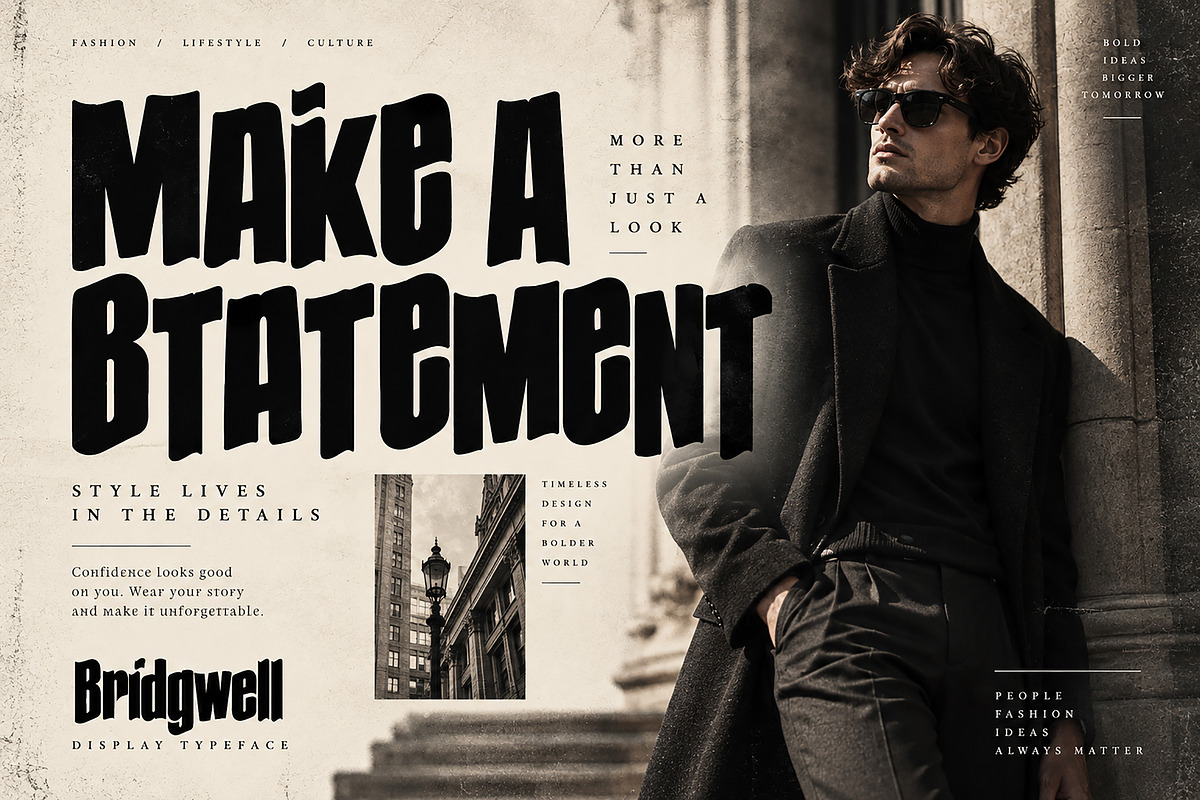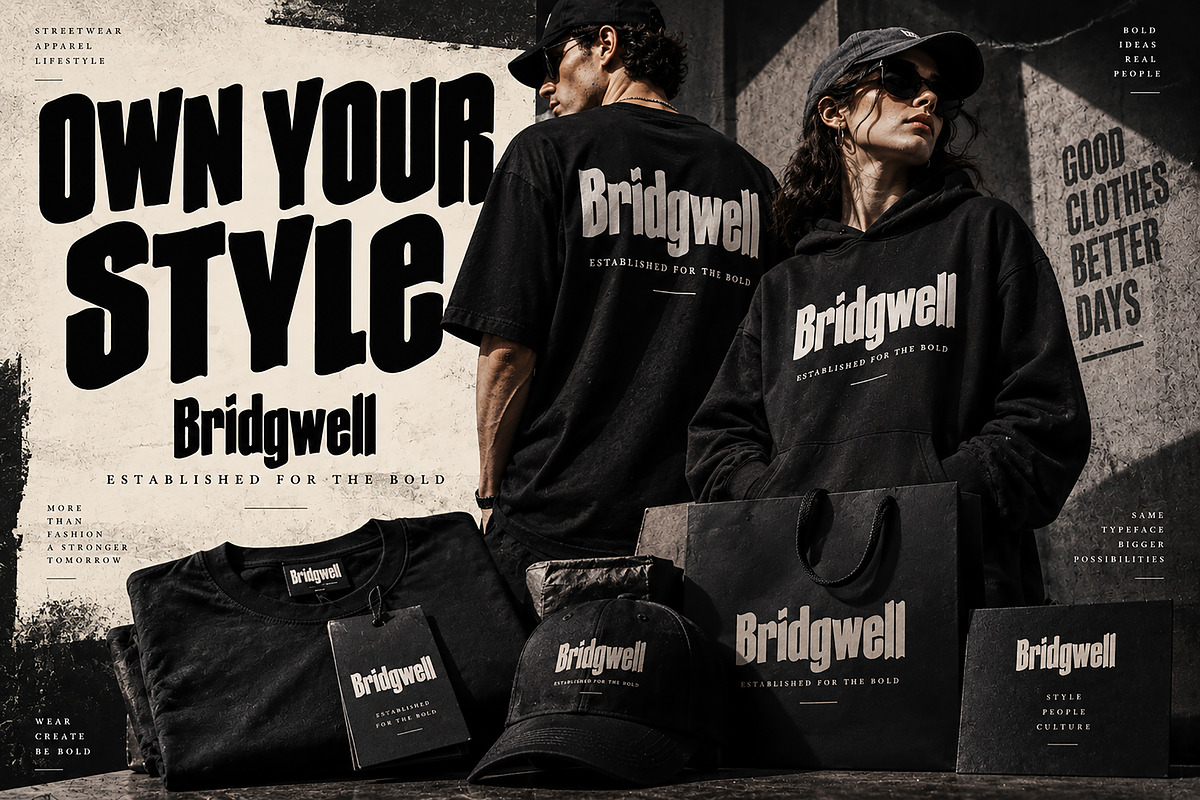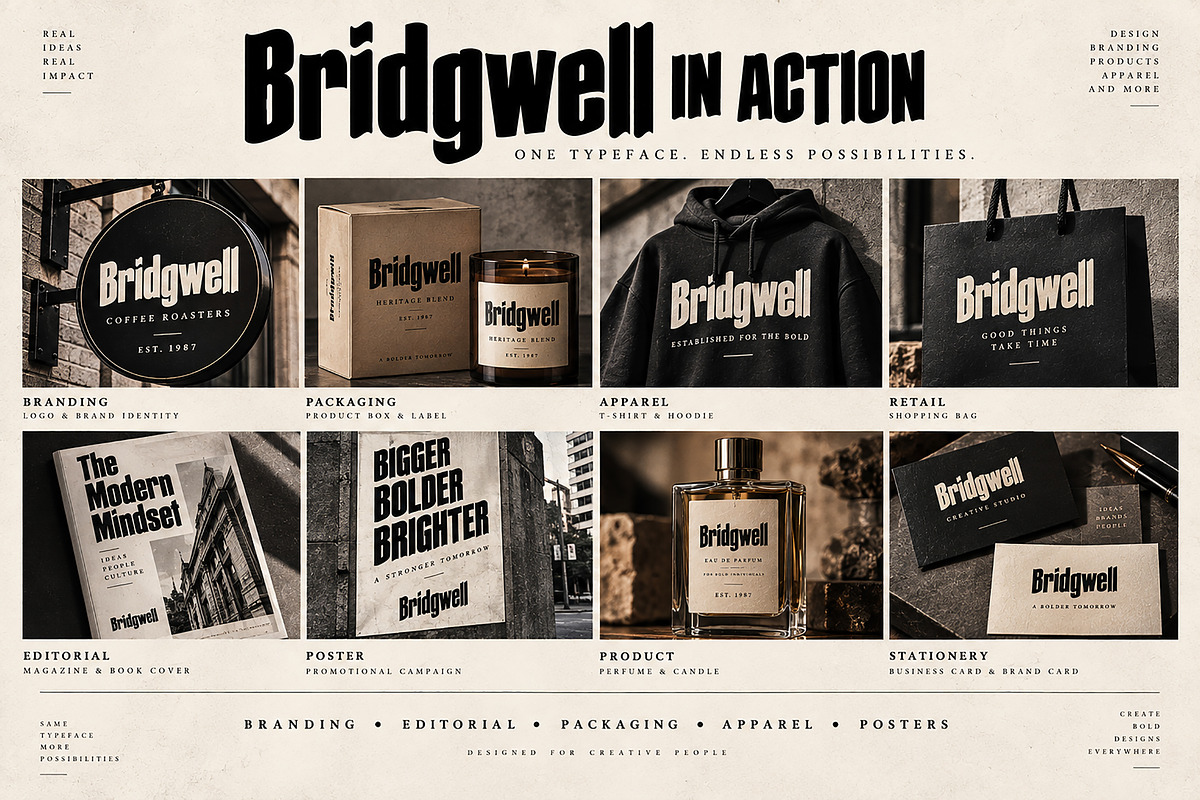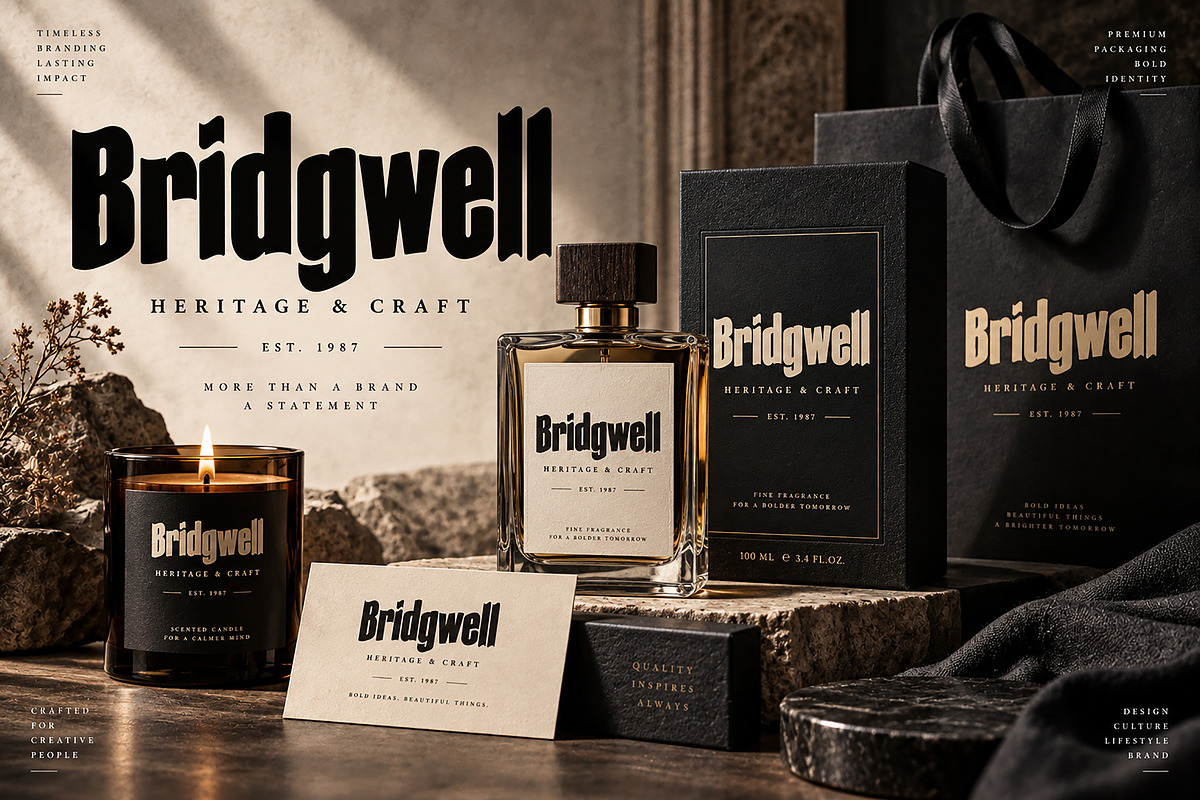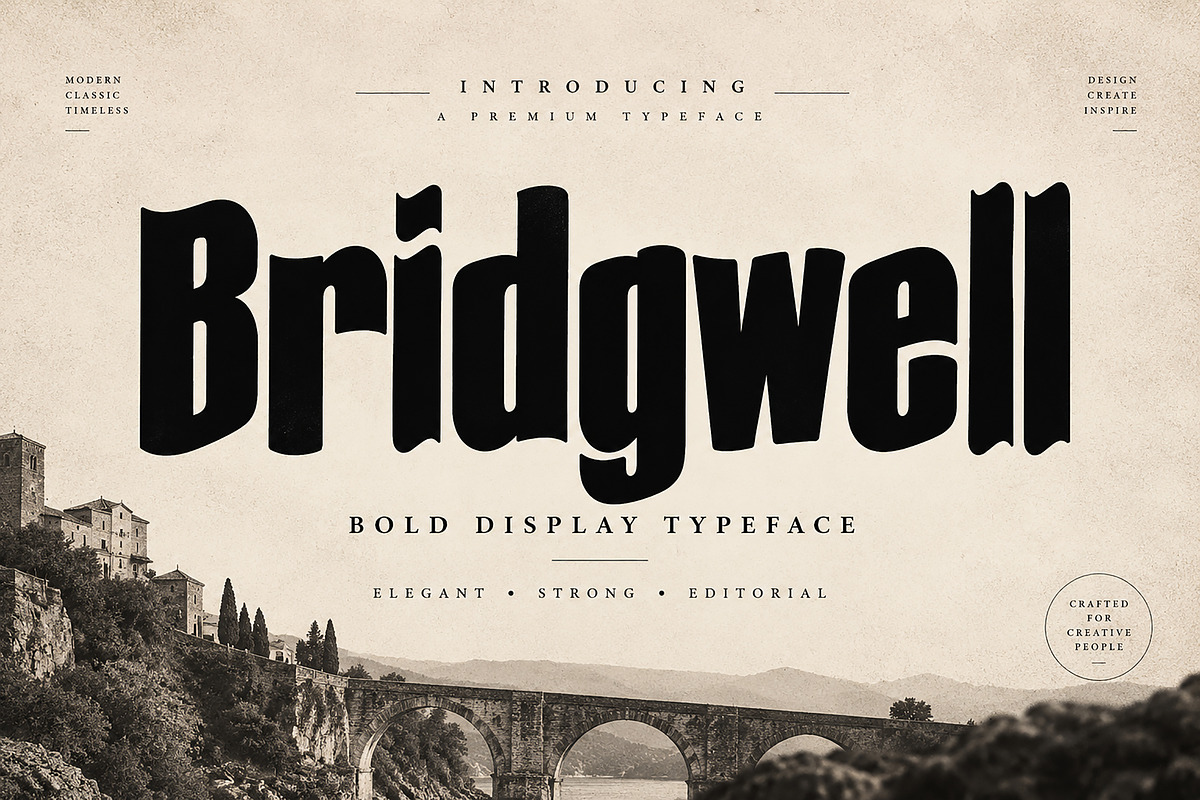
Bridgwell
Bridgwell is a bold and distinctive display typeface designed to bring a strong, confident presence to your creative projects. With its condensed proportions, heavy letterforms, and striking visual character, Bridgwell is perfect for designs that need an impactful typographic statement.
Its bold personality works beautifully across branding, logos, fashion campaigns, editorial layouts, posters, packaging, apparel, product labels, and promotional graphics. Whether you're creating a premium brand identity or a powerful headline, Bridgwell adds a memorable and sophisticated visual presence.
Logo & Brand Identity
Fashion & Streetwear
Editorial & Magazine Design
Posters & Advertising
Packaging & Product Labels
T-Shirts & Apparel
Book & Album Covers
Product Branding
Headlines & Display Typography
Boutique & Lifestyle Branding
Style: Bold Display / Condensed / Editorial
Recommended For: Branding, Headlines, Posters, Packaging, Apparel & Creative Advertising
Create bold statements and memorable visual identities with Bridgwell.